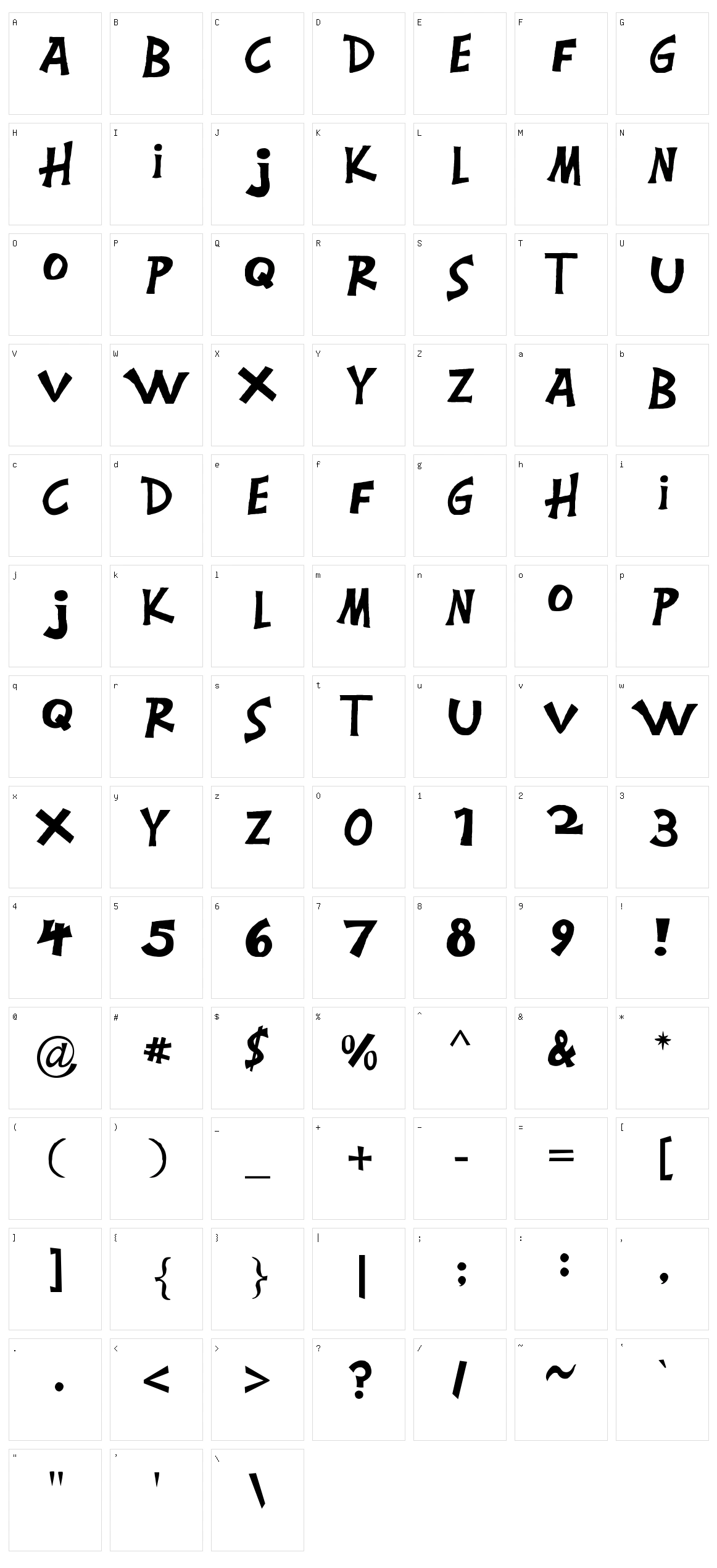
It's my first one, but I made sure that even though I'm a rookie when it comes to this, high quality is still assured. (There's even international characters included:)
"Montgomery" is based off of the opening credits of the classic TV show, "Bewitched". Not the cursive writing (which is available at Mischa Hof's Bewitched Web Site, http://mischahof.com/bewitched/ ), but the font that lists the stars ("Starring Elizabeth Montgomery, Dick York [or Sargent], Agnes Moorehead"...)
Since the credits were done by hand, a few discrepancies are inevitable. But I did the best I could to come up with a letter that resembled both. For example, the "D" used in York's credit is slightly smaller than the "D" in Sargent's, so the "D" in this font is somewhere between the two.
If you'd like the lettering to be exactly as it was in the opening credits, type normally ("Montgomery"). No kerning was done to the uppercase letters, so if you'd prefer the letters farther apart, type in capitals ("MONTGOMERY"). Type in lowercase ("montgomery") for the most condensed version. Or mix and match ("mOnTgomeRy") for the desired look. If nothing looks right (and that doesn't include your spellchecker underlining the funky use of letter cases), try typing spaces, or use Manual Kerning (different for each word processor).
~~~~~Originally released on April 15, 2003, on what would have been Elizabeth Montgomery's 70th birthday. (She was the charming actress who played Samantha, the twitchy-nosed good witch of "Bewitched" from 1964 to 1972, despite switching Darrins.)~~~~~~